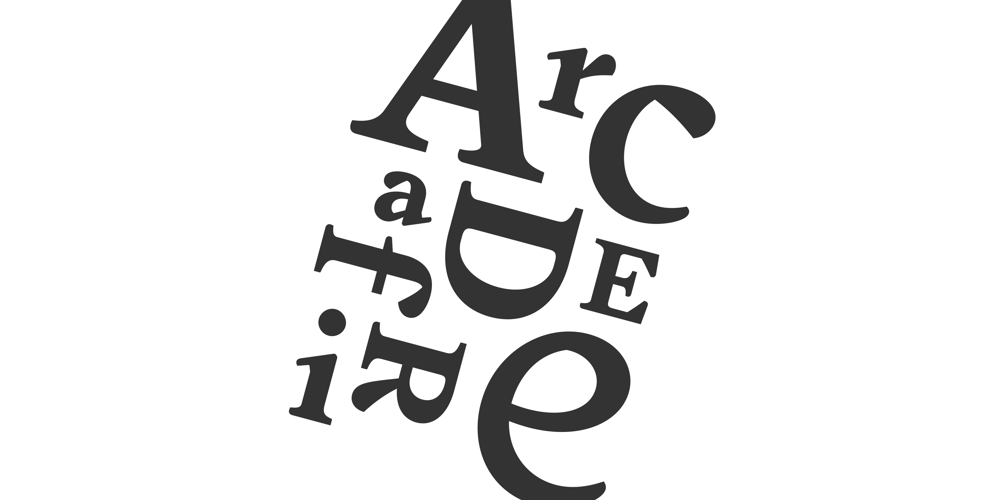
FS Olivia
FS Olivia font
FS Olivia Font Family was designed by Eleni Beveratou and published by Fontsmith. FS Olivia contains 4 styles and family package options. AntwerpOn a visit to Belgium and the Netherlands while still an MA student at Reading University, Eleni Beveratou made some important discoveries. First, there was the letter ‘g’ from the Didot family seen at Plantin Moretus Museum in Antwerp, which seemed “almost like a mistake”. Then there were strange details such as the serifs on the “l”, “h”, “k”, “b” and “d” in Egmont Cursive and other typefaces by Sjoerk Hendrik de Roos, found in volumes of poetry she picked up from a chaotic bookshop in Amsterdam.These were characters that stood out from the text but seemed to blend harmoniously with the rest of the letters. “And there it was, the spark. I decided to design a typeface that would capture the details of the process of writing.”A guiding handEleni shared her initial thoughts with Phil Garnham and Jason Smith. They liked what they saw in her tentative first sketches, and gave her the chance to develop her ideas further. Phil, in particular, provided valuable input as FS Olivia took shape.Eleni’s main influence – the handwritten – would give the font its character. “When creating a typeface,” says Eleni, “it’s fair to say that it reflects some of the designer’s personality. And that’s certainly the case with FS Olivia.“Although technology is part of my everyday life. I am a great admirer of traditional graphic design where you can touch and feel paper and ink.”Irregular“What I particularly like,” says Eleni, “is that a printed item can develop its own personality sometimes as a result of imperfections in the print.“FS Olivia has some of these characteristics as it’s inspired by handwriting, and yet it also includes some very modern features.”Feminine and fascinating, FS Olivia captures the expressive twists and turns of (the poet’s?) pen on paper, with low junctions, deep top serifs and semi-rounded edges.Round outstrokes contrast with the rough corners of the instroke, while strong diagonals and inclined serifs create a richly textured pattern.PolytonicIt’s only fitting that there should be a version of this poetic font for one of the birthplaces of poetry and song. Eleni, who hails from Athens, developed an extensive range of glyphs that could be used for the Greek language, in both modern and ancient texts.For the latter, there is a version of Olivia for displaying polytonic Greek (a system that utilises a range of accents and “breathings”), which brings the 21st century technology of OpenType to the presentation of poetic texts from Ancient Greece.Just think what Homer could have done with that.